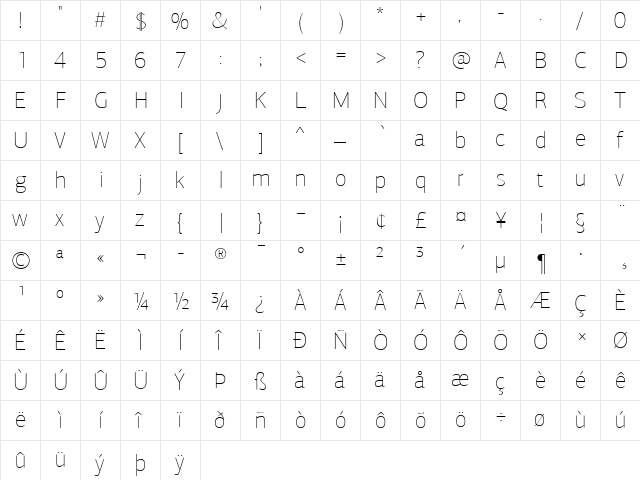
PF Agora Sans Pro XThin
XThin · Parachute蠗orldwide Panos Vassiliou ·
Design Context for PF Agora Sans Pro Typeface
PF Agora Sans Pro takes a measured approach to typography — its balanced proportions and neutral character make it a reliable workhorse for both digital and print work. Its slender proportions lend an understated elegance to any composition.